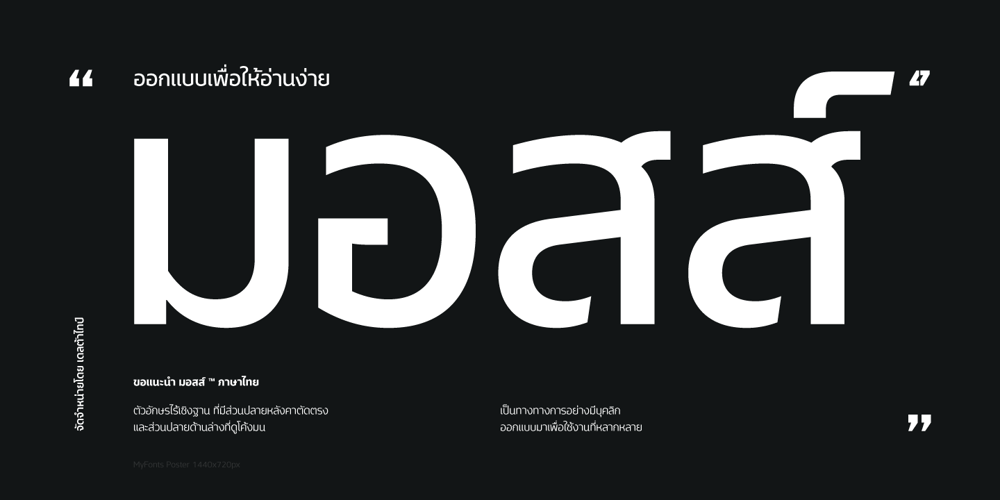
Mosse Thai Font Family was designed by Kwanchai Akkaratammagul, Chaiyong Nateparit and published by Deltatype. Mosse Thai contains 9 styles and family package options. Mosse Thai is an extraordinary sans-serif typeface that designed for improve readability, formal but casual, with straight cut at terminal and reverse angled at spur and finial give a little bit sweet. Mosse is simple and identical, come with nine weights allowed you to use the right weight to the right proportions. Mosse Thai also support many languages, thanks to extended latin glyphs. Mosse Thai come with standard Adobe Latin 4 glyphs, world-ready and mark2mark support.